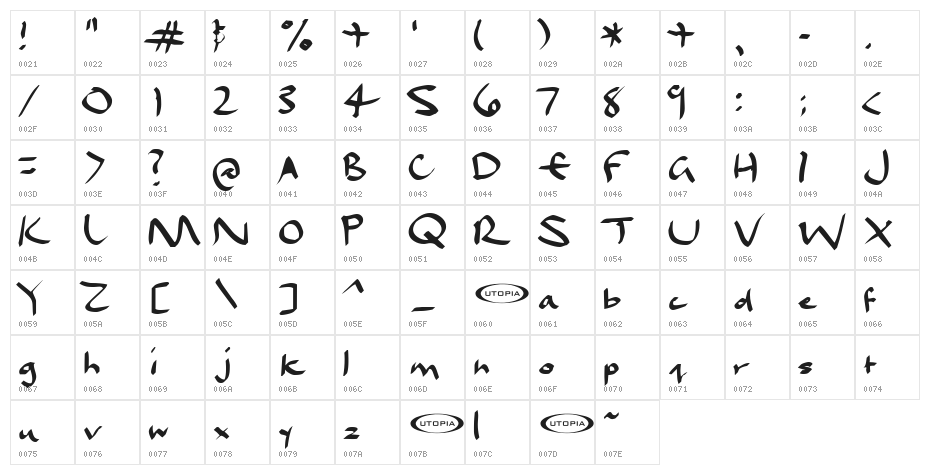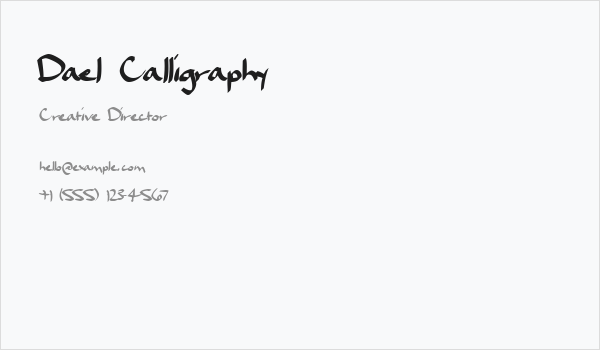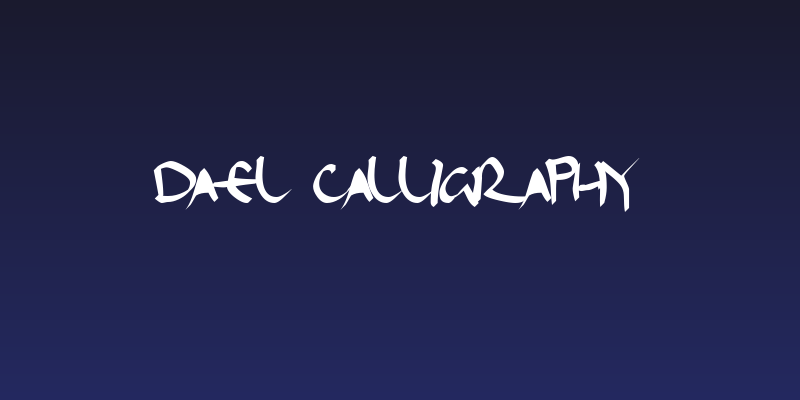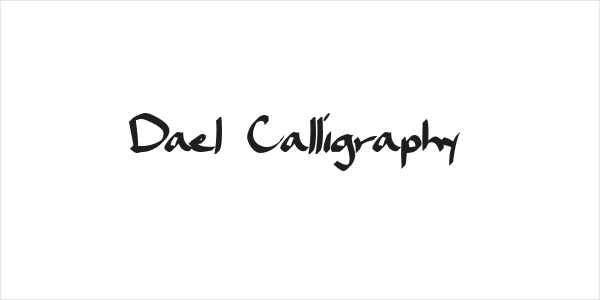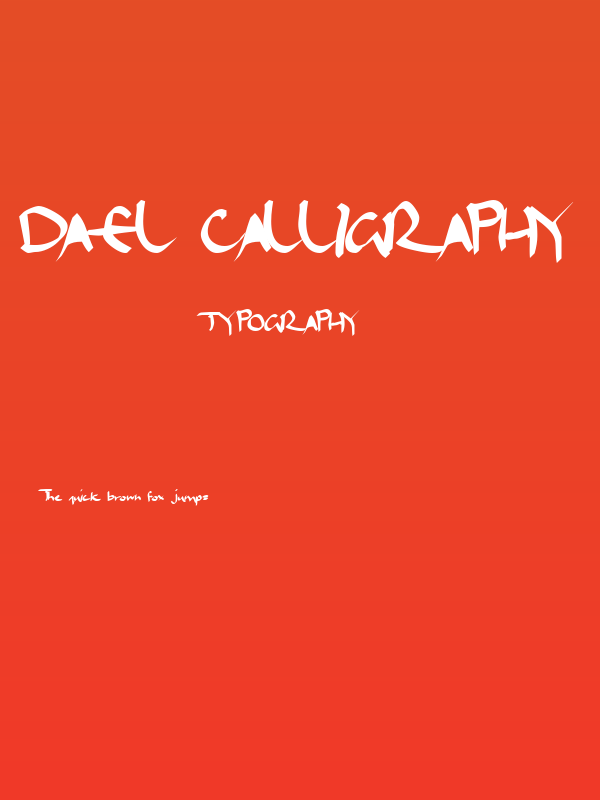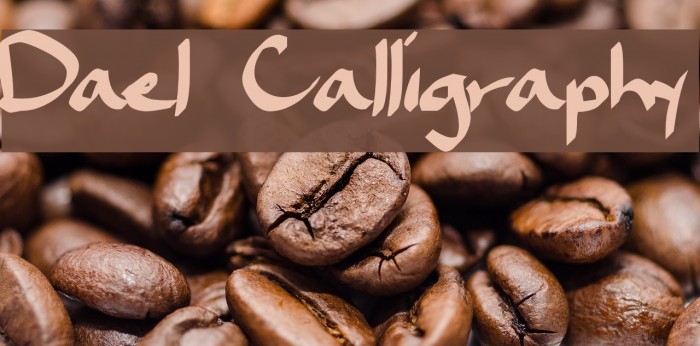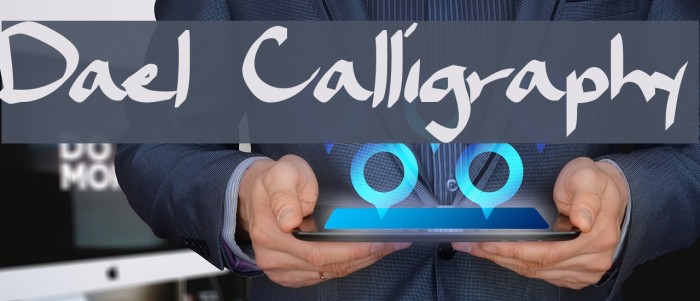
Dael Calligraphy Font
Dael Calligraphy Description
This font features a dynamic and expressive calligraphic style, characterized by its fluid and sweeping strokes. The letters exhibit a sense of motion and elegance, with each character flowing seamlessly into the next. The uppercase letters are bold and prominent, while the lowercase letters maintain a consistent rhythm and balance. The numbers and special characters are crafted with the same artistic flair, making them visually cohesive with the alphabet. This font's unique style is perfect for adding a personal and artistic touch to any design project.
| Use Case | Logos, Headlines, Artistic projects |
| Proposed Projects | Ideal for wedding invitations, greeting cards, artistic posters, and branding materials that require a personal touch. |